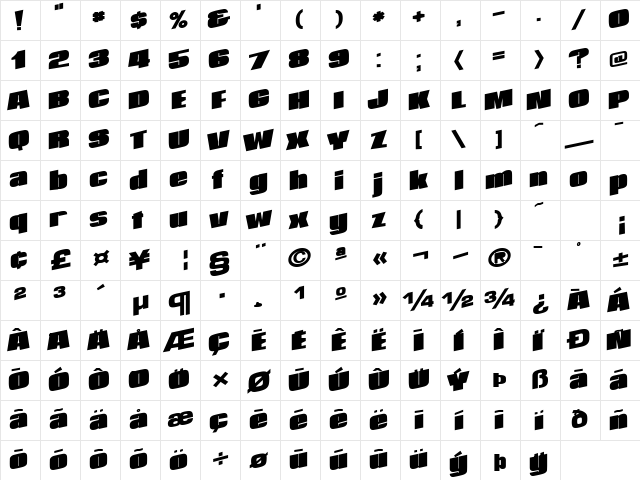
AfterLife113 Bold
Design Context for AfterLife113 Typeface
AfterLife113 is a composed and adaptable typeface that performs quietly and consistently across a wide range of design contexts. Its bold stroke weight gives it real presence on the page.
Pro Tip: Use AfterLife113 in both headline and body roles to test its range before committing to a single application.